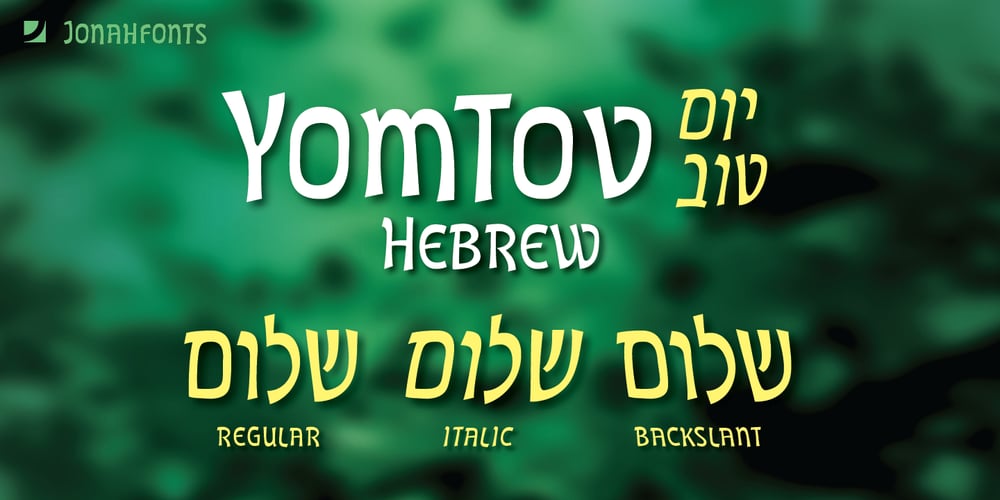
Yom Tov Font Family was designed by John Nahmias and published by Jonahfonts. Yom Tov contains 3 styles and family package options. YomTov is a whimsical hebrew font. Traditional in design with a free spirit and slightly bounced. Hebrew alphabets contain 22 Hebrew letters along with five final letters which are automatically activated when used in Applications such as Apple Pages® and MicroSoft Word®. The Hebrew Letters do not contain cantillation marks very much used in everyday modern Hebrew. Designed with acomplete latin font that mirror the Hebrew letterforms. Latin lower-case letters have been replaced with smaller caps.You may also be interested in my other Hebrew fonts, NEWMARK Hebrew, HEBRON Hebrew, PAGEANTRY Hebrew and a Hebrew Script font KOMUNIDAD Script.YomTov requires OpenType-aware software.